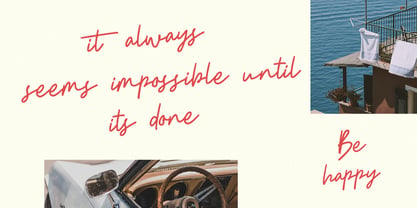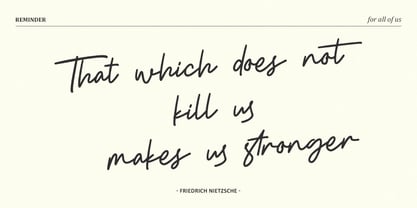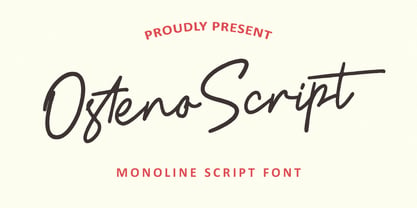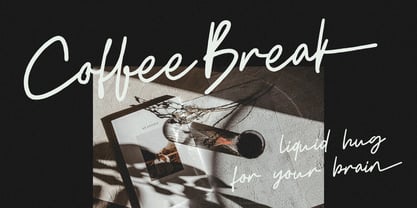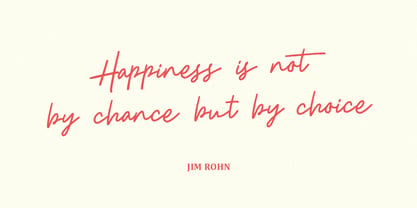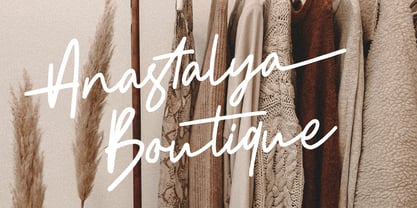
MC Osteno
by Maulana Creative
The MC Osteno Font Family was designed by Gilang Maulana and published by Maulana Creative. MC Osteno contains 1 styles. More about this family
Introducing Osteno Script, a stunning monoline script font that captures the essence of authentic, relaxed handwritten elegance. Osteno Script is your go-to typeface for projects that demand a stylish and contemporary touch. Its beautiful, flowing strokes and consistent monoline weight make it incredibly versatile, perfect for a variety of applications: - Branding logos, giving your business a unique identity. - Product design, creating stylish visuals and impressive products. - Quotes and social media graphics, adding a chic and emotional flair to your content. - Invitations and greetings, conveying warmth and sophistication. - Photography watermarks, protecting your work with a delicate signature style. Osteno Script comes complete with a full set of uppercase and lowercase characters, numerals, punctuation, and essential multilingual support. It also features a variety of beautiful ligatures and alternate styles to make your text truly stand out, enhancing its usability for branding, web design, and editorial projects.
Designers: Gilang Maulana
Foundry: Maulana Creative